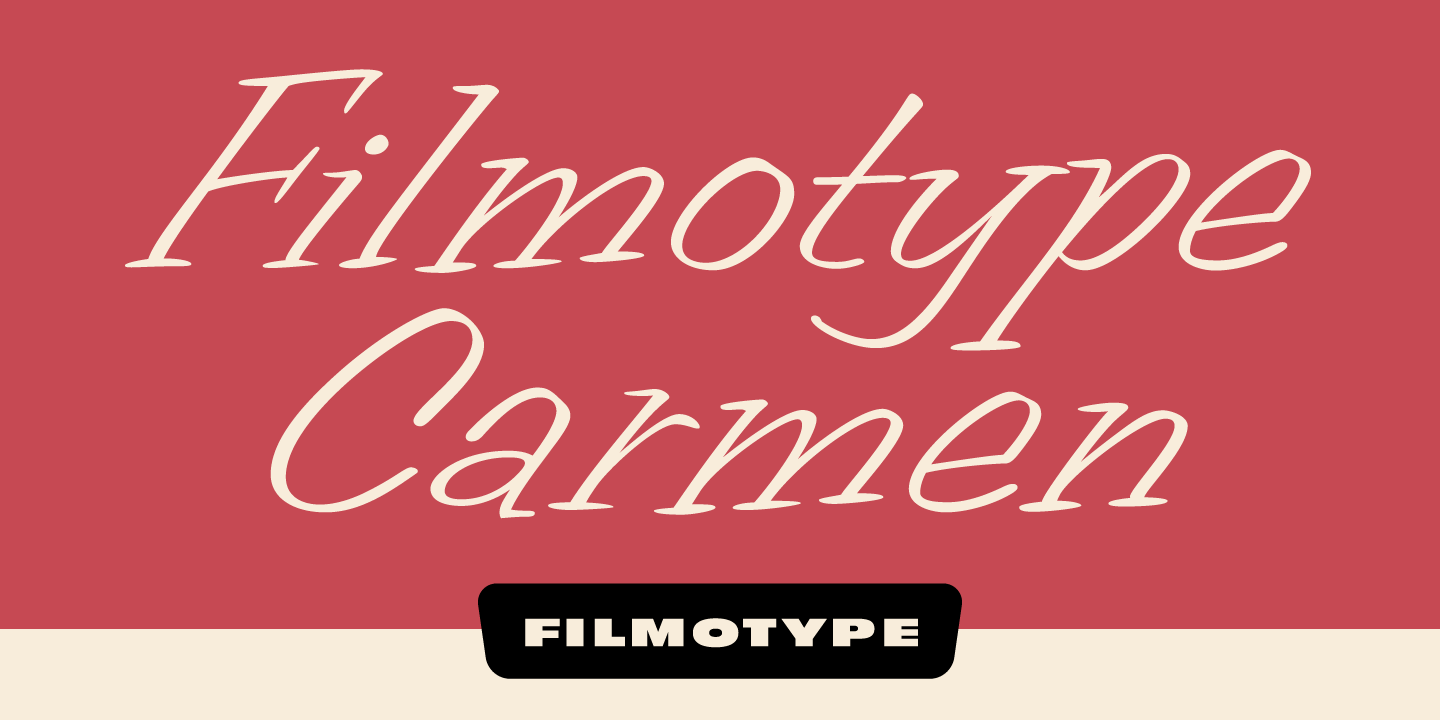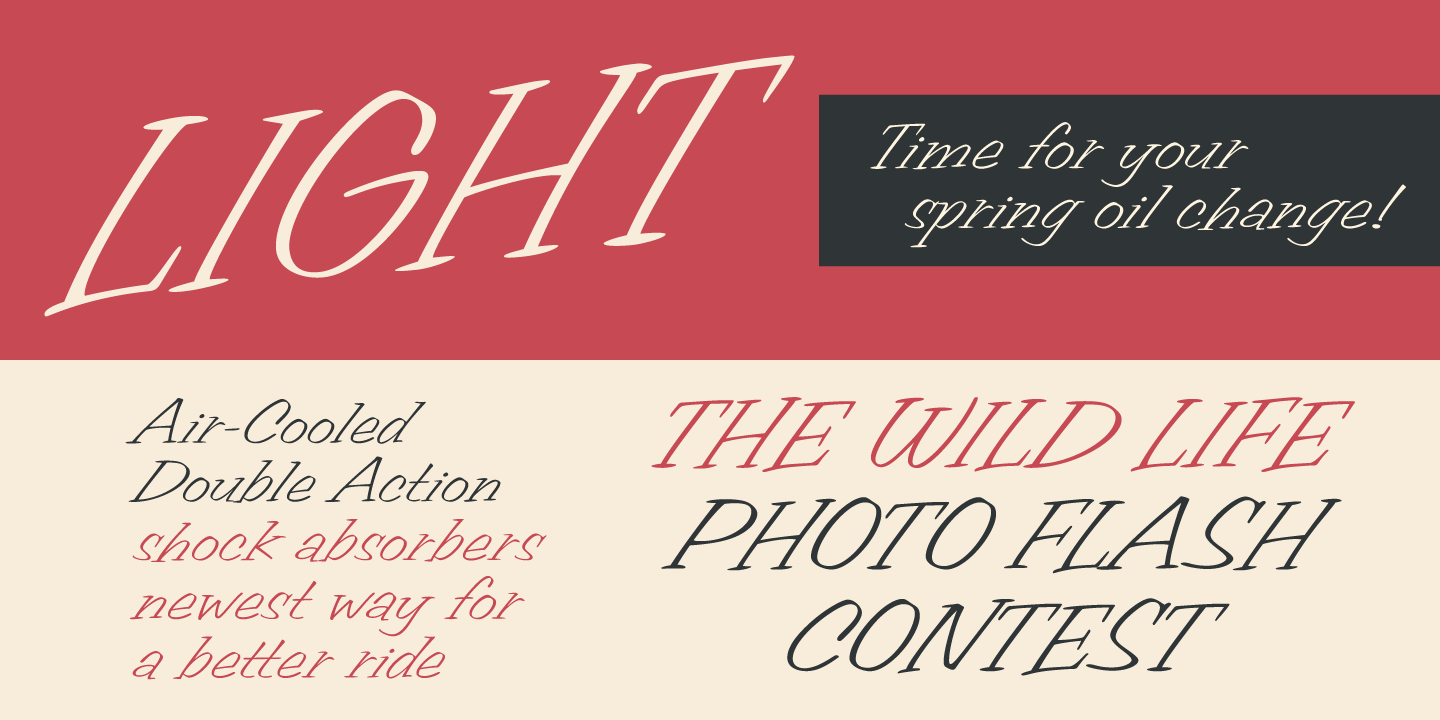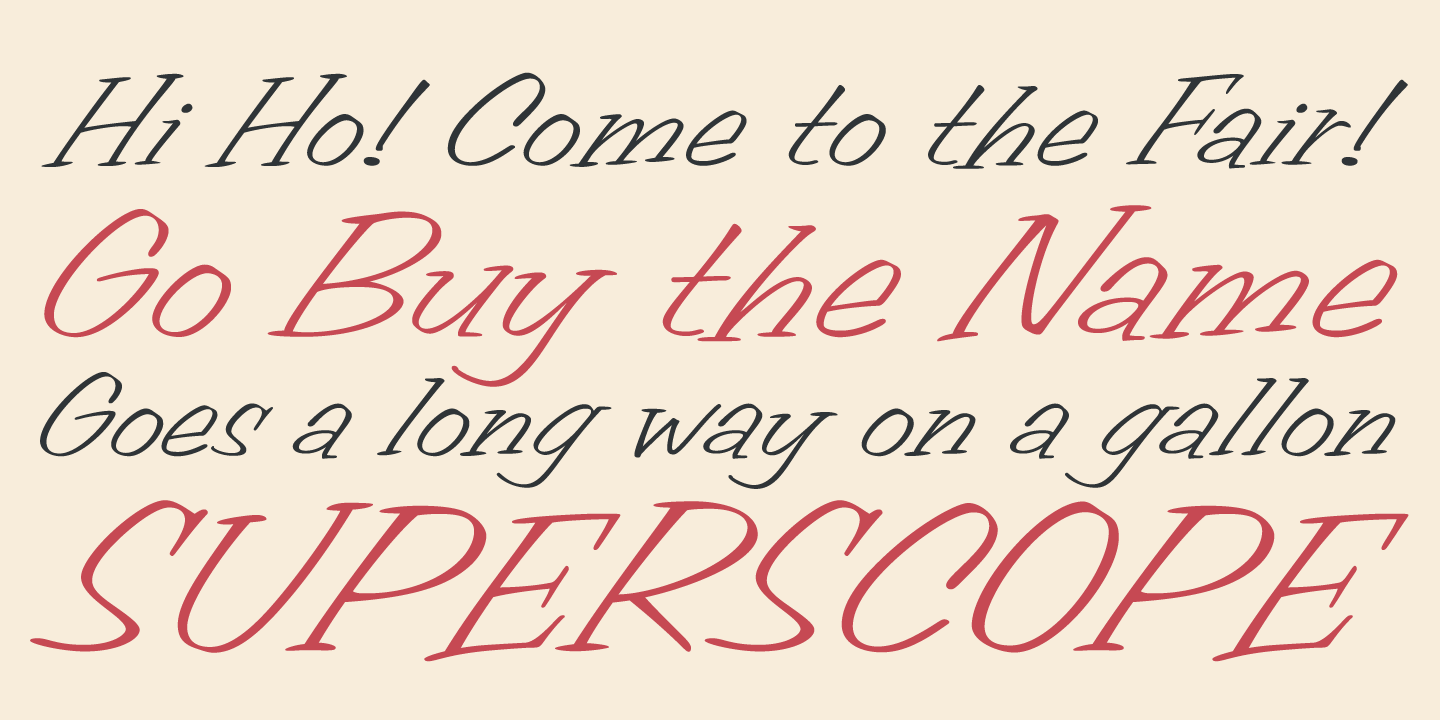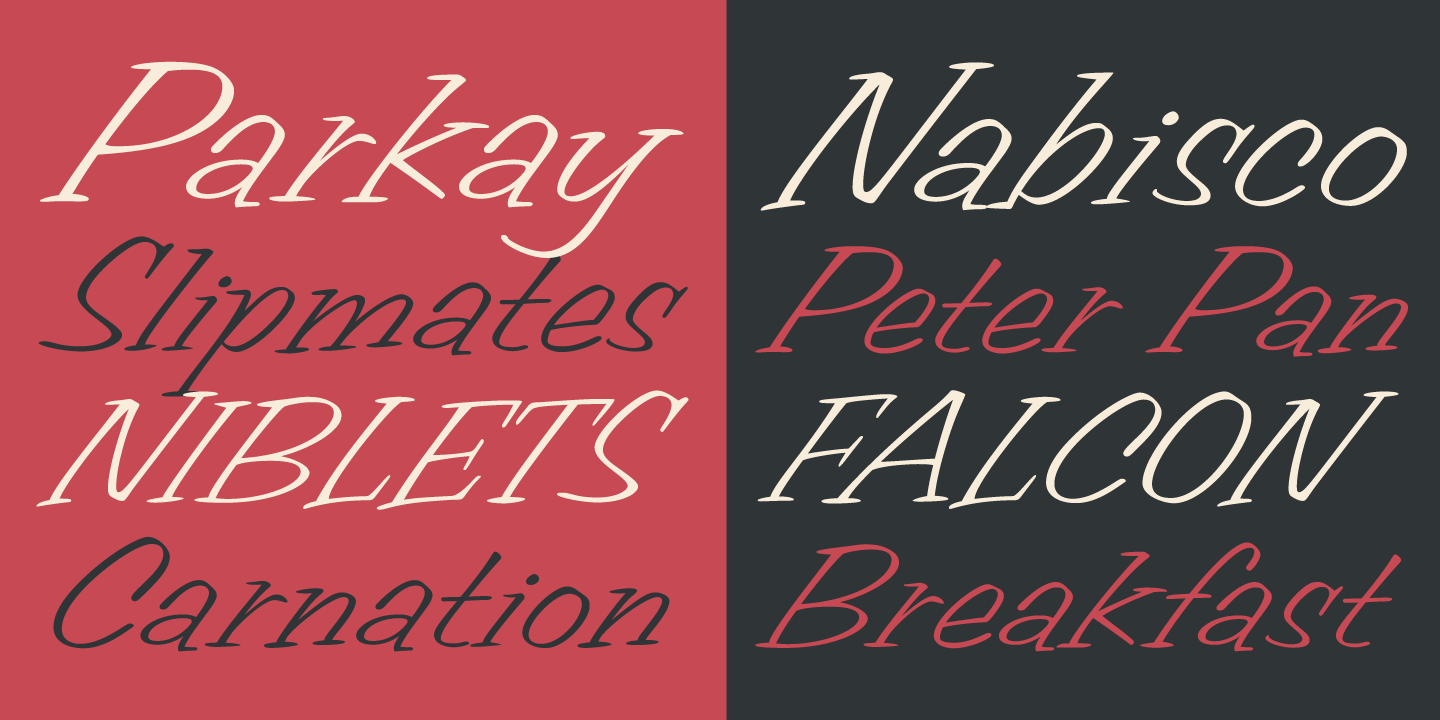
Filmotype Carmen
Introduced by Filmotype in 1955, Carmen with its unique personality joined Filmotype's Casuals category with its own unique flair. With it's slanted brush and speedy informal nature, It retains the mid-century playfulness of sho-card lettering while providing readability. Filmotype Carmen was developed from the original font filmstrips and includes a full international character compliment, automatic fractionals, ordinals, and a host of alternate characters in dynamic OpenType format.